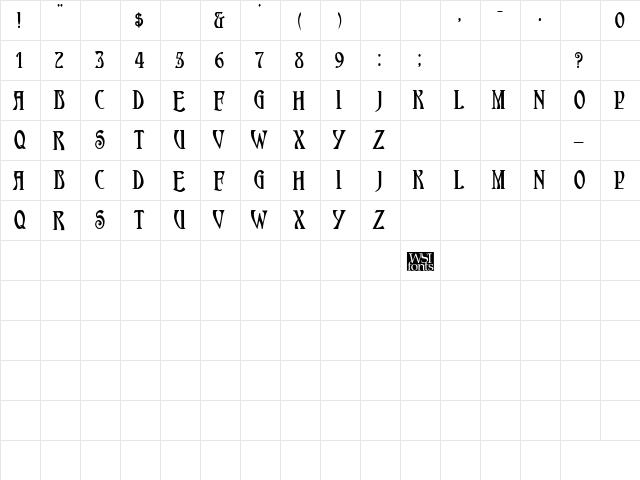
HardinCaps Bold Font Preview
HardinCaps Bold
Design Context for HardinCaps Typeface
HardinCaps is a composed and adaptable typeface that performs quietly and consistently across a wide range of design contexts. Its bold stroke weight gives it real presence on the page.